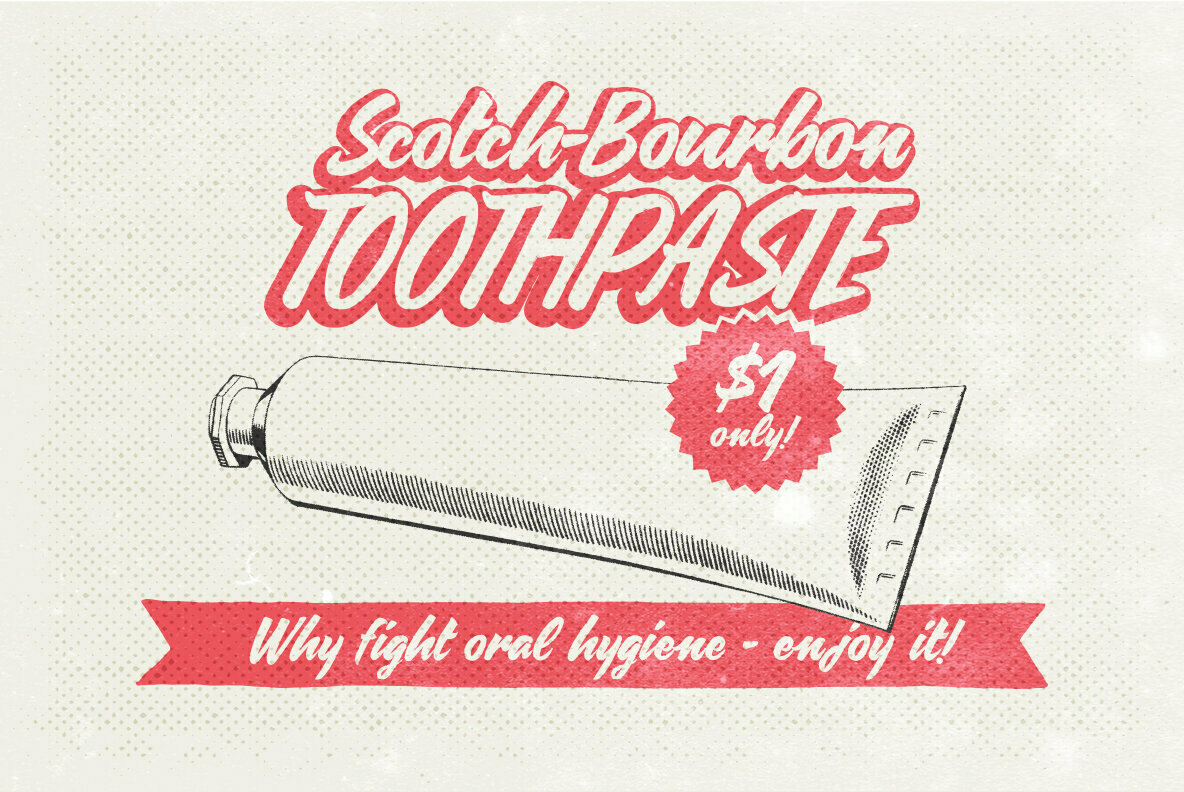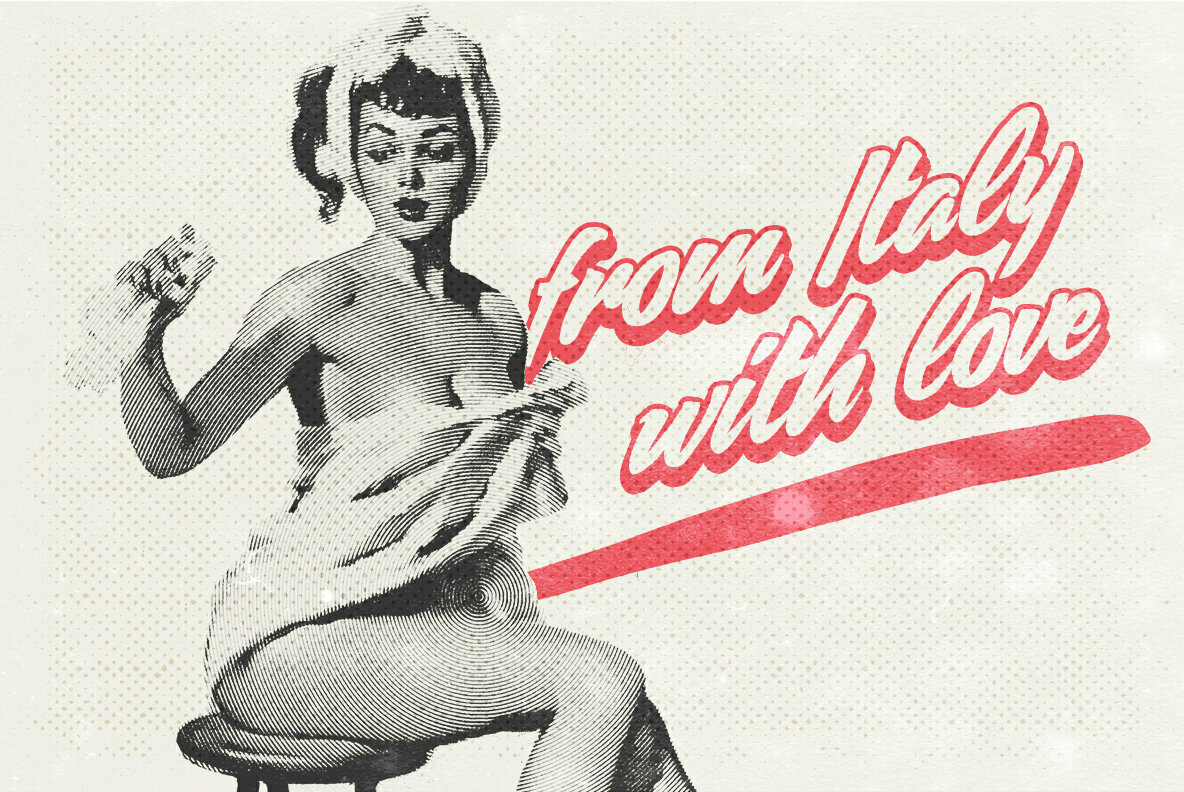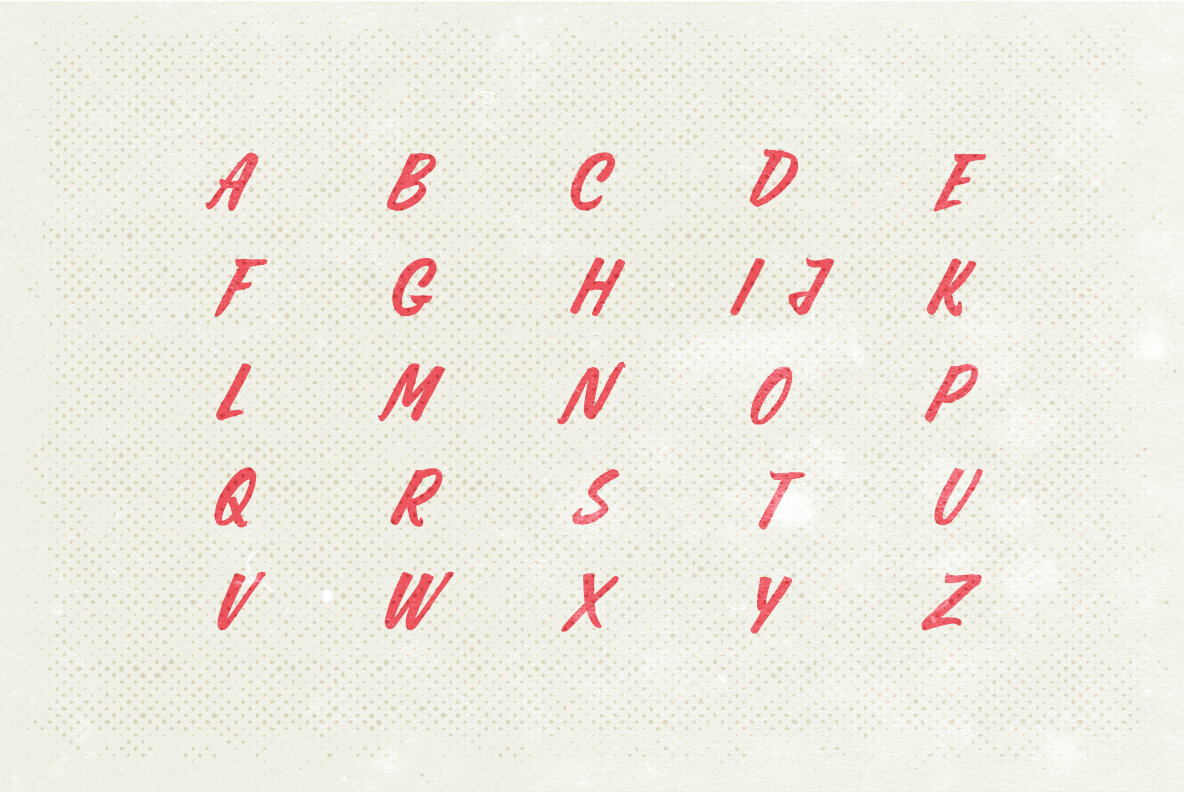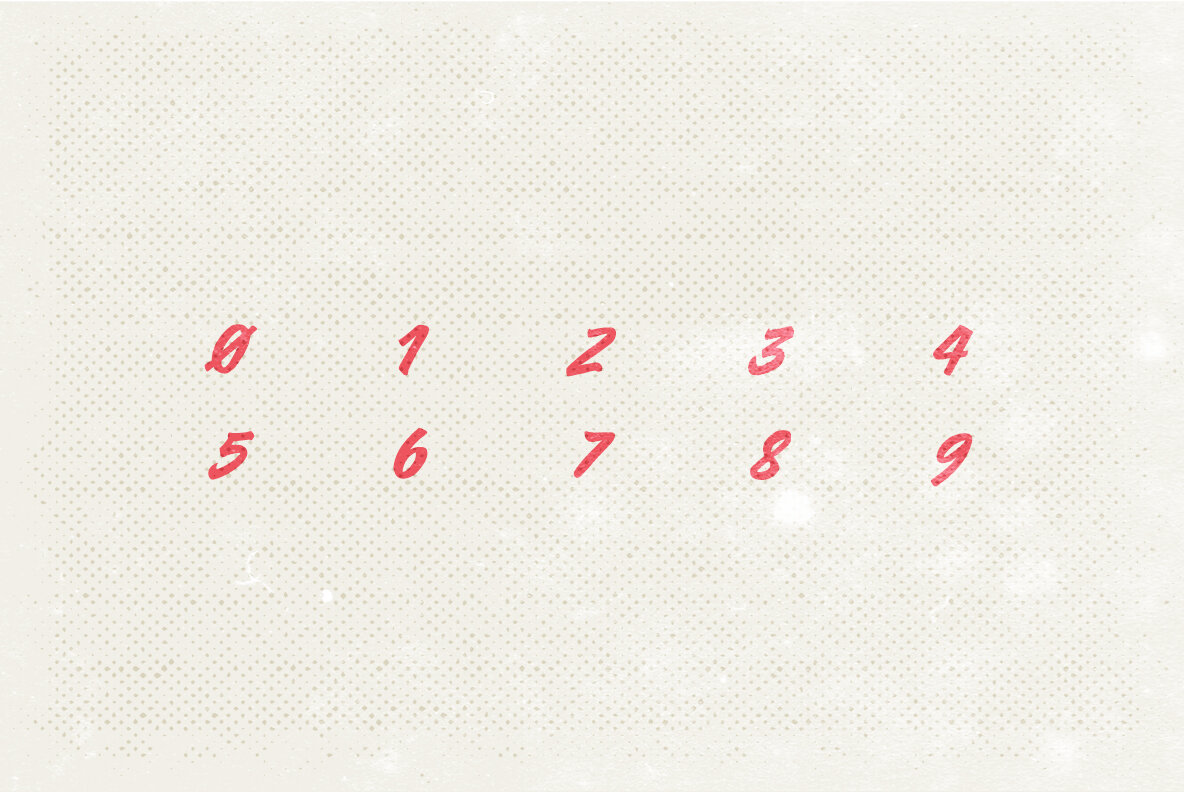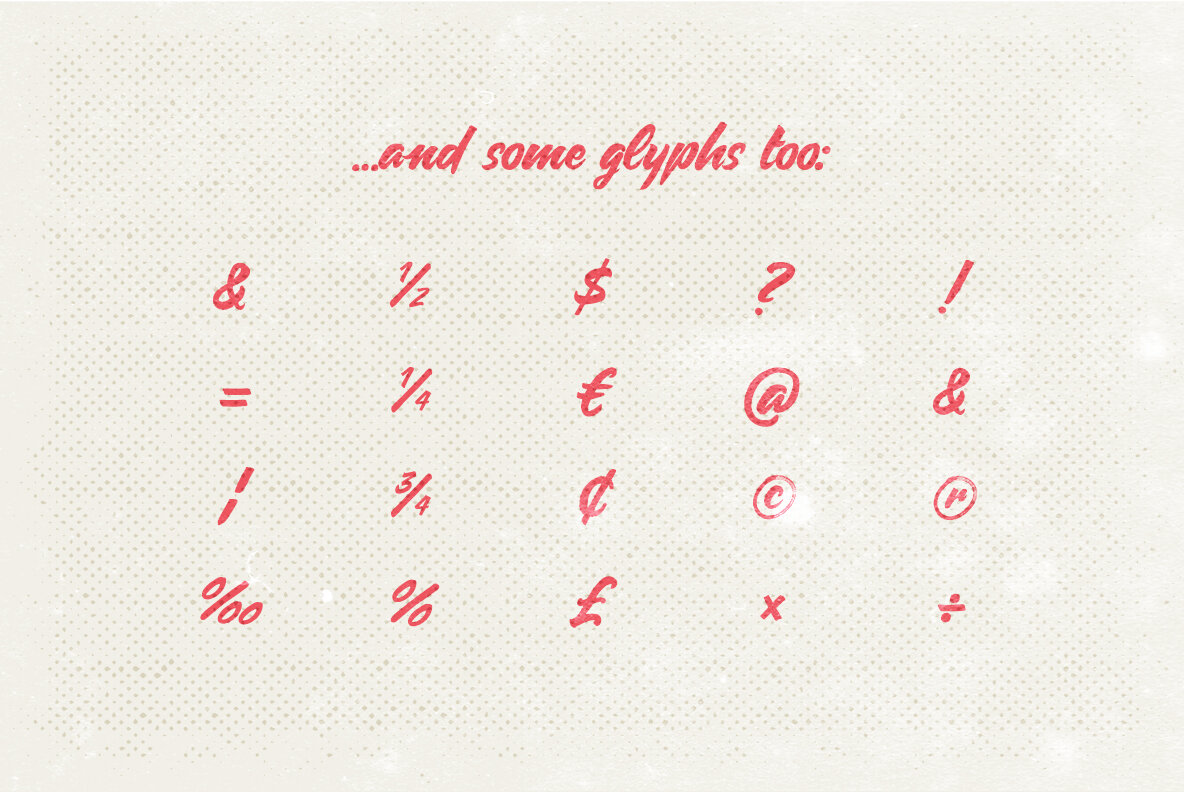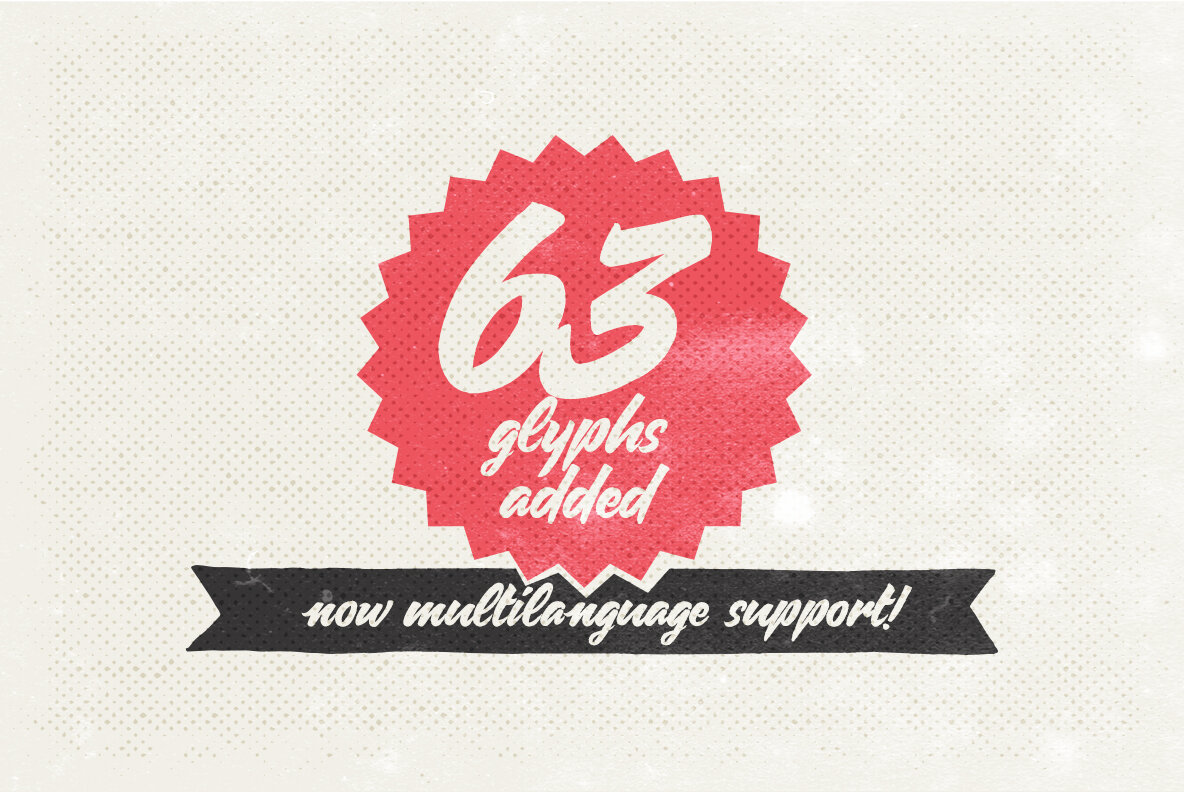
Carosello Font
Carosello
Evoking the nostalgia of mid-century advertisements, Carosello by Unio Creative Solutions captures the essence of a bygone era with its authentic hand-drawn aesthetic. Created using a real sharpie, this font embraces the natural, imperfect lines found in traditional hand-lettering, while maintaining the distinctive glyph styles from the 1950s. Ideal for graphic designers aiming to channel vintage flair, Carosello is your go-to font for crafting timeless 1950s hand-lettered quotes, evocative design elements, and inspirational phrases. Features:Carosello: The Charm of Hand-Crafted Typography